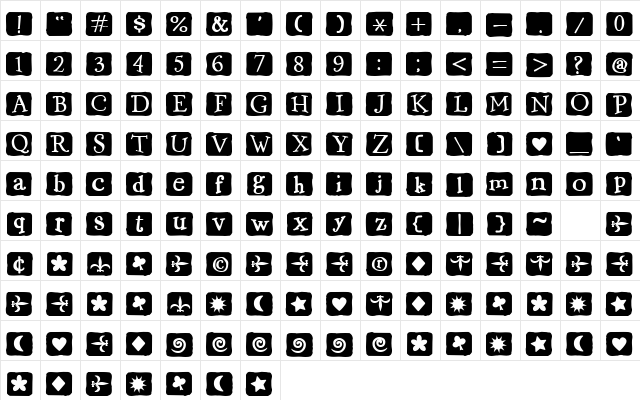
Complete 2Peas Flea Market Block Regular glyph index. Displaying only characters natively supported by 2Peas Flea Market Block Regular font.
2Peas Flea Market Block Regular is a composed and adaptable typeface that performs quietly and consistently across a wide range of design contexts.